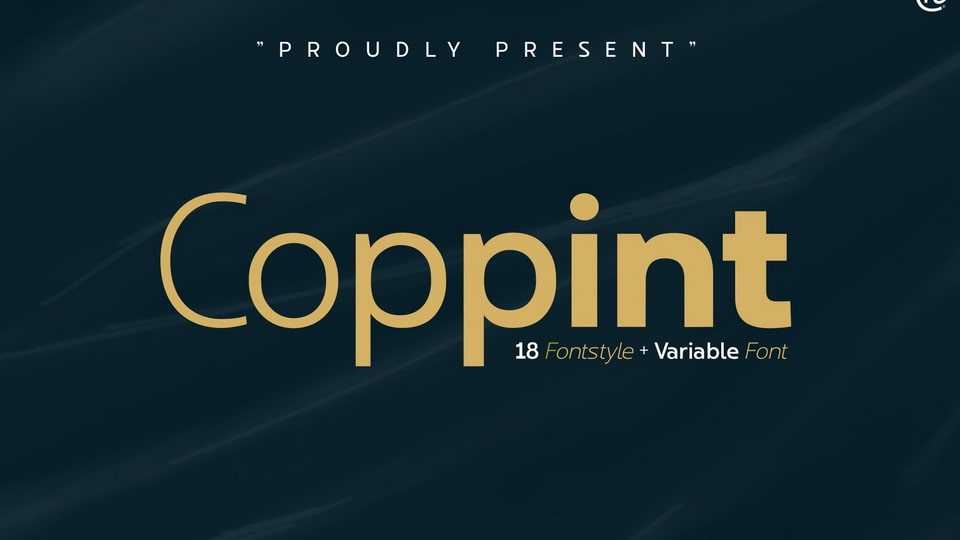
Download Coppint font, a sans serif typeface formed with serenity and imagery in patterns that refer to warmth and harmony. Even so, Coppint font also gives each letter an elegant and semi-modern impression.